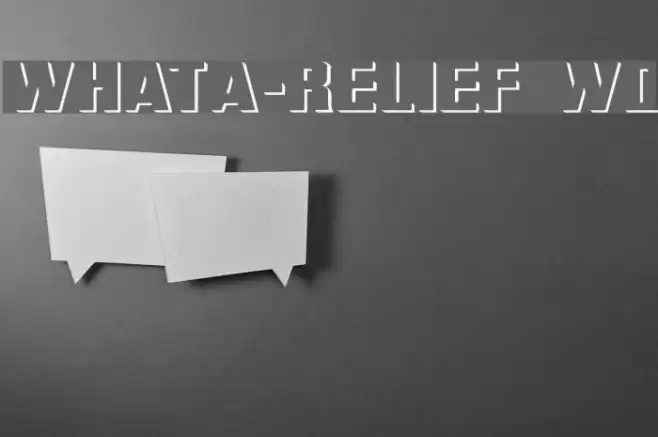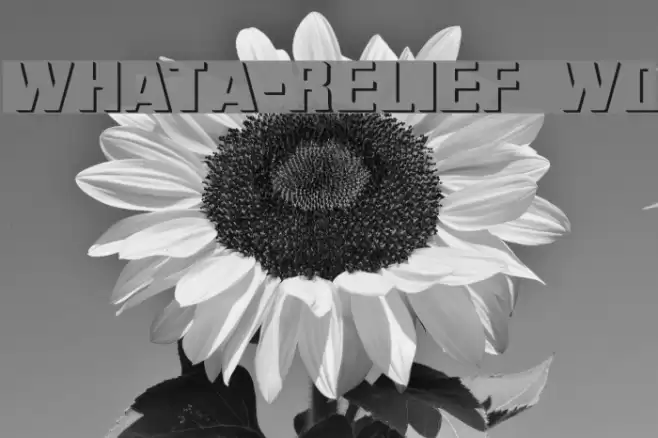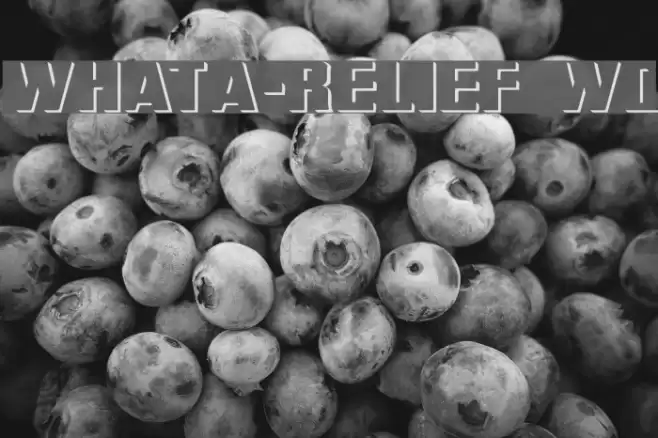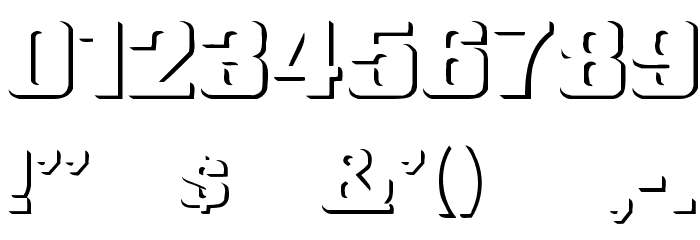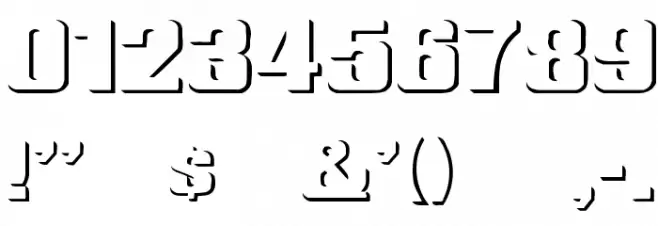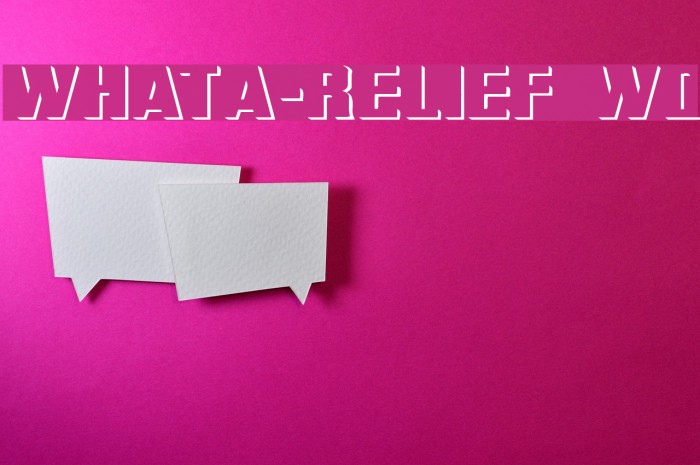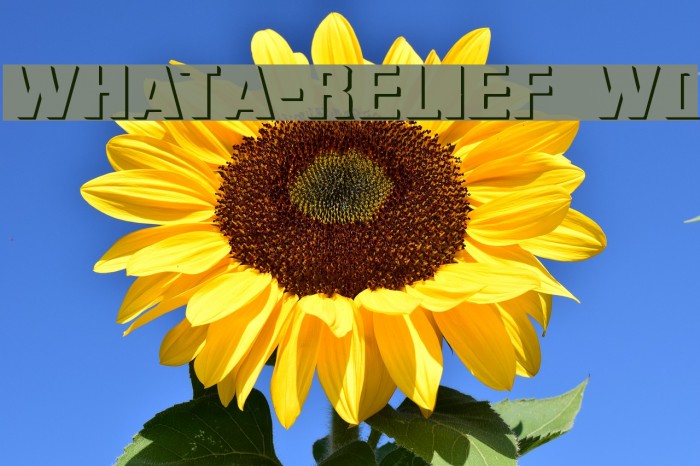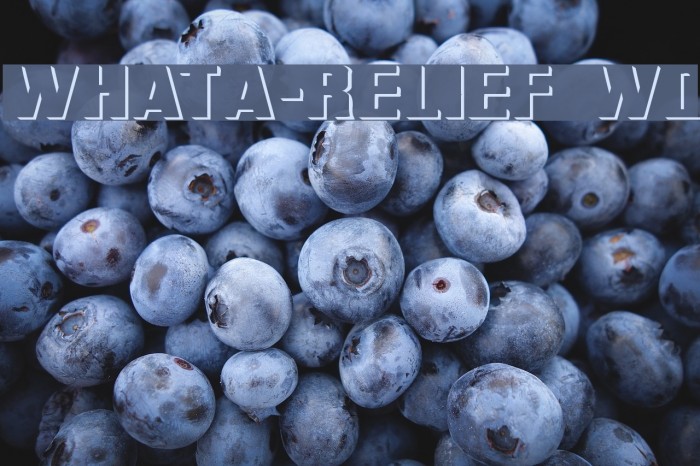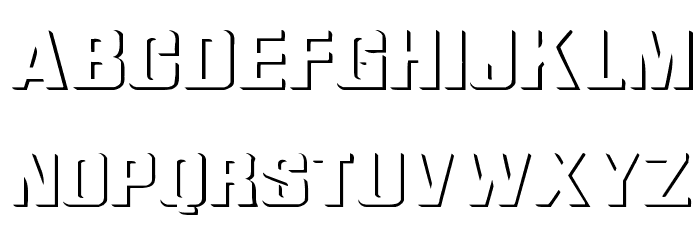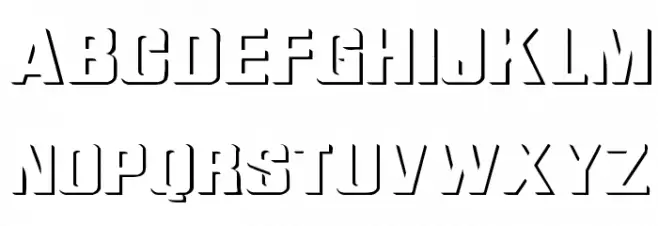
WhatA-Relief Wd
This font features a bold, stencil-like design with sharp, angular edges and a distinct cut-out style. The characters are uppercase and have a uniform thickness, creating a strong and impactful visual presence. The numbers and special characters maintain the same bold and structured appearance, making them highly legible and suitable for attention-grabbing designs. The font's unique cut-out style adds a modern and industrial feel, ideal for projects that require a bold statement.
Bold, stencil-like font with sharp, angular edges and a modern industrial feel.
- Proposed Projects: Ideal for posters, headlines, branding, and signage that require a bold and modern look.
- Use Case: Headlines, Logos, Posters